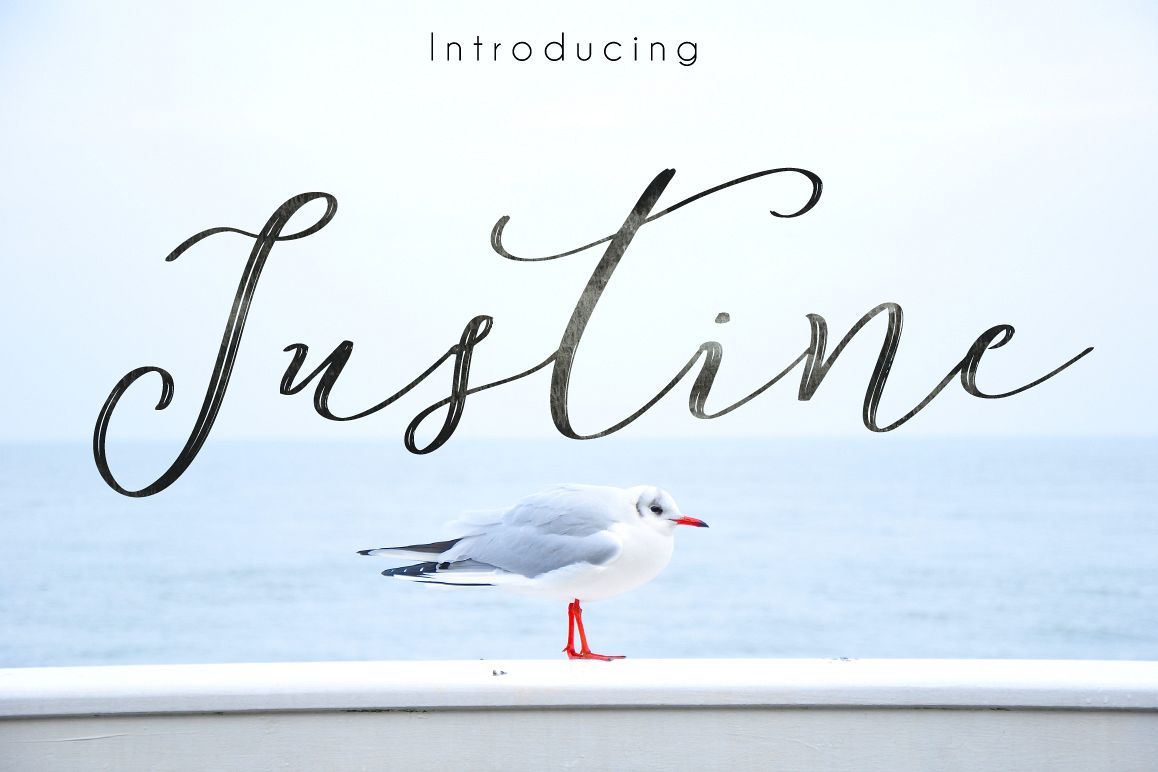
Justine Flowers
Justine Flowers - Font Duo
It is 2 completely different and perfectly combined fonts. Each font looks great as a standalone or in conjunction with another, or all together. This font is ideal for branding and decorate your any project.
This font are perfect for festival posters or your blog. Also with their help, you can create a logo or wedding invitation. Or just use for your small business, book covers, stationery, marketing, magazines and more.
Justine Flowers